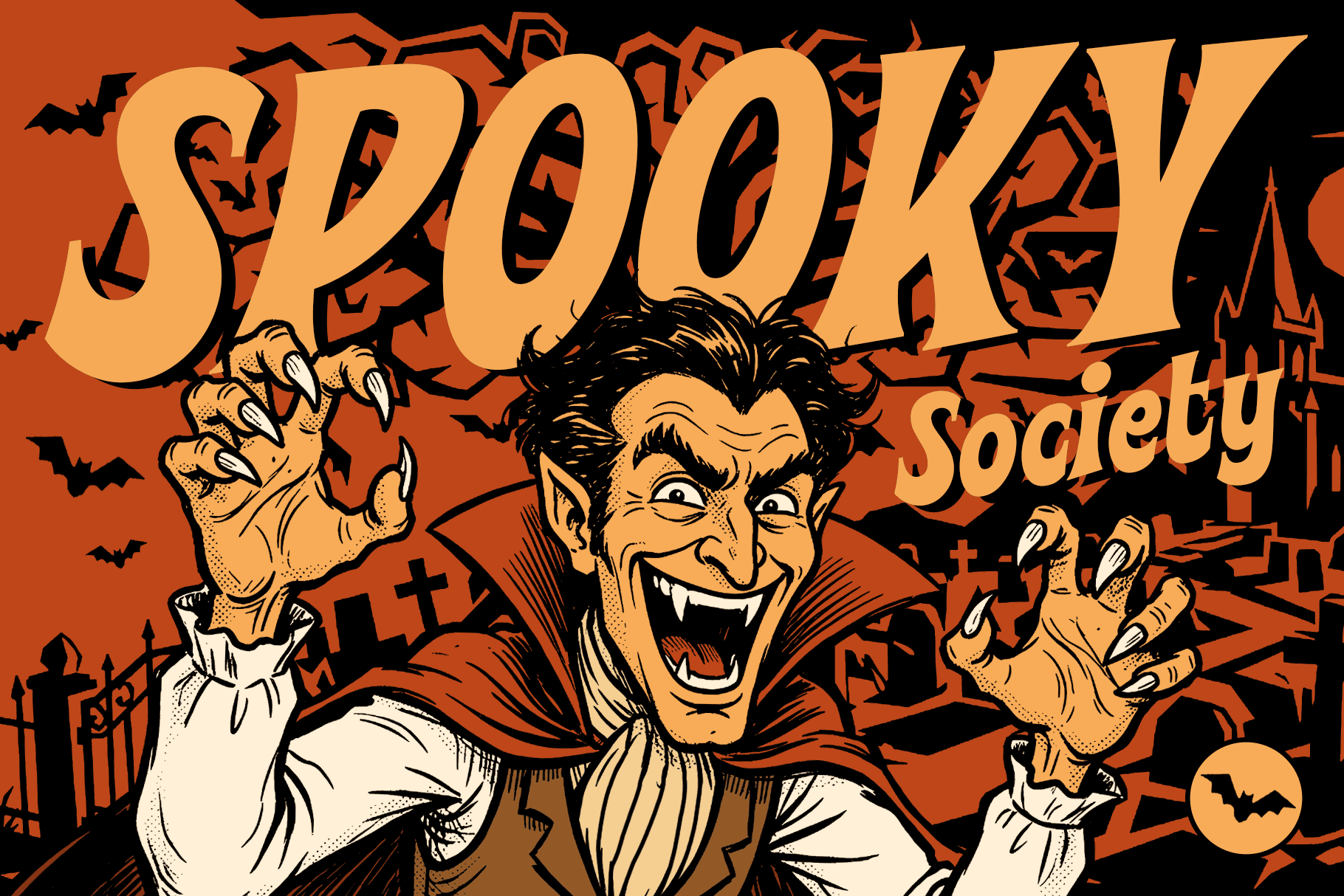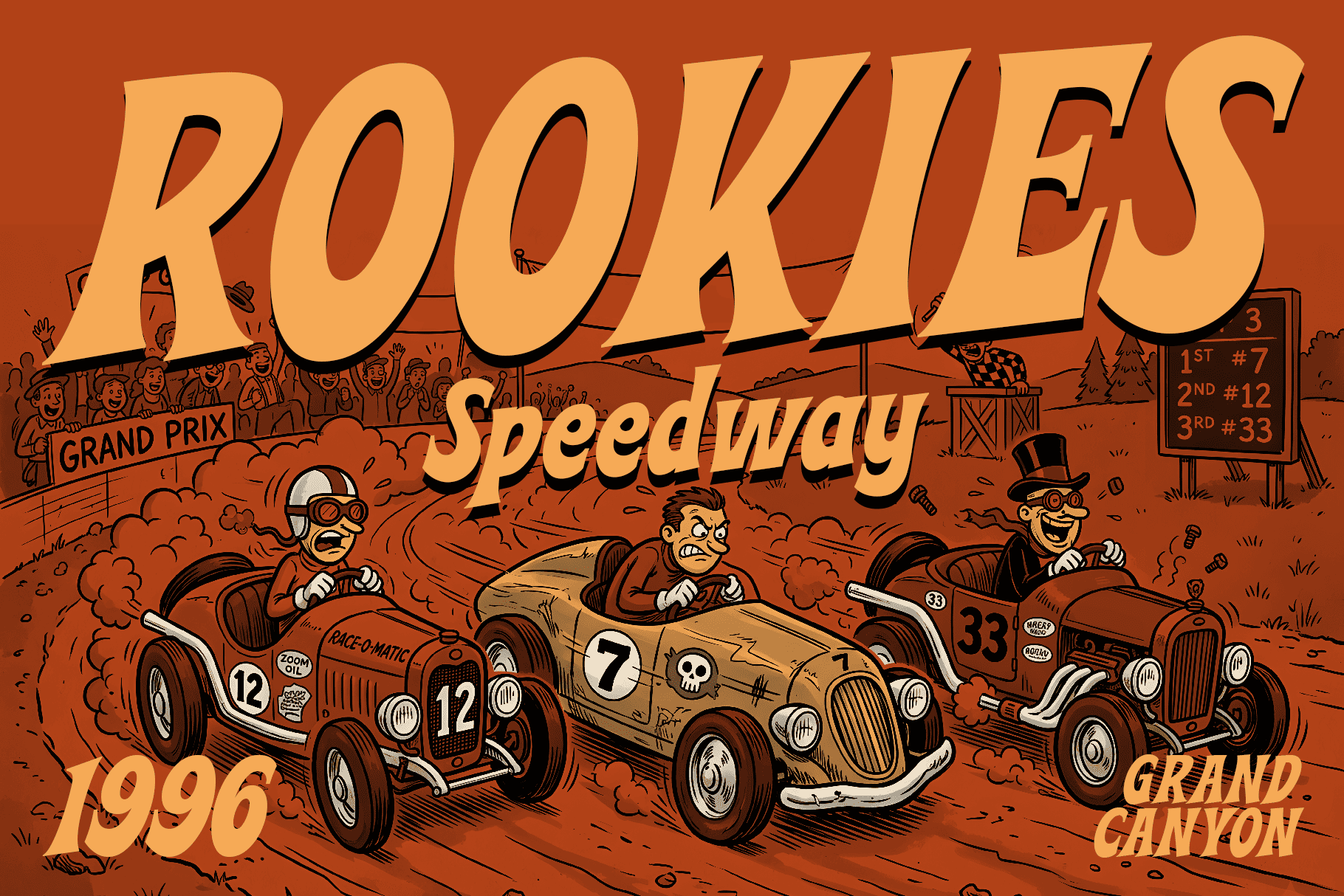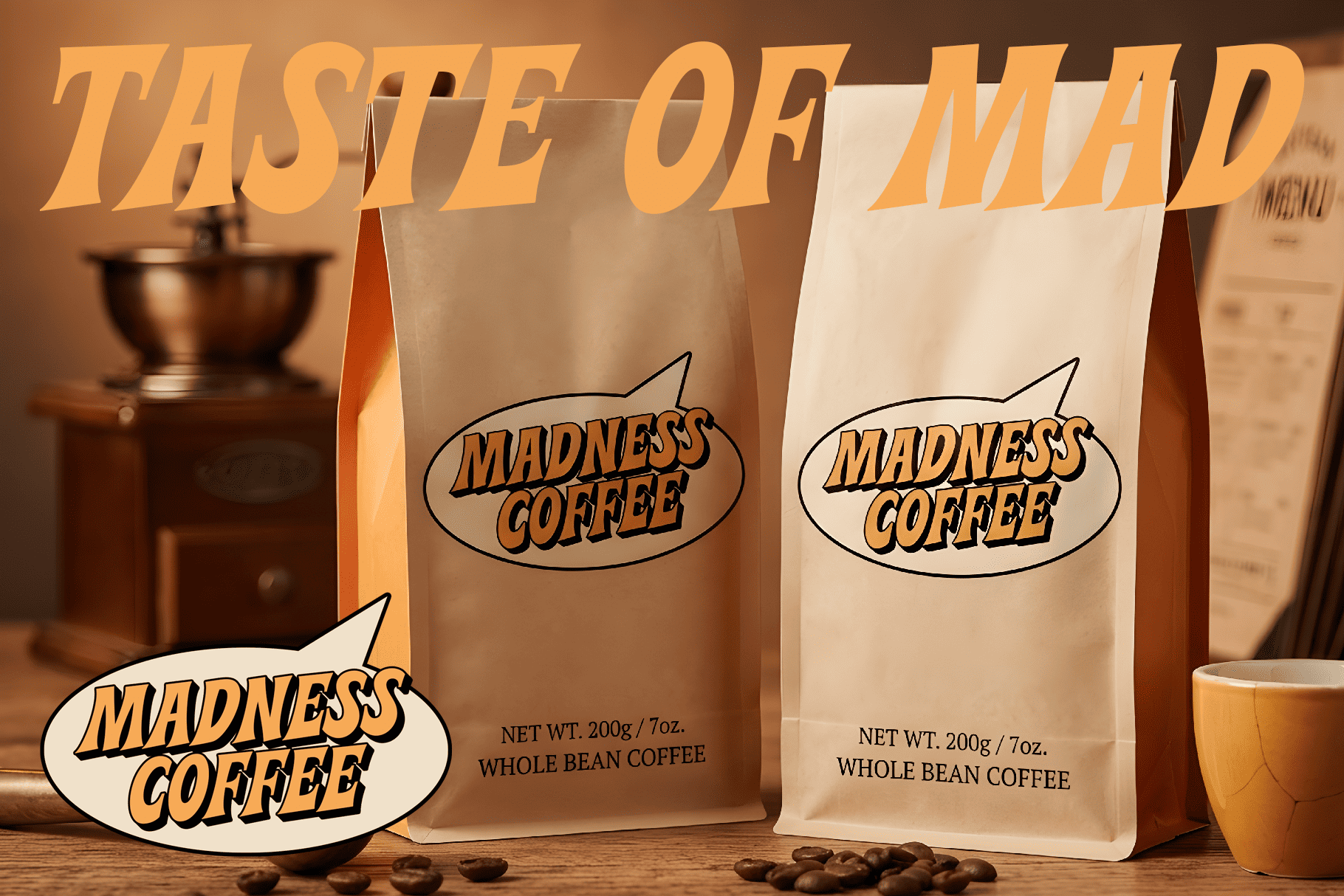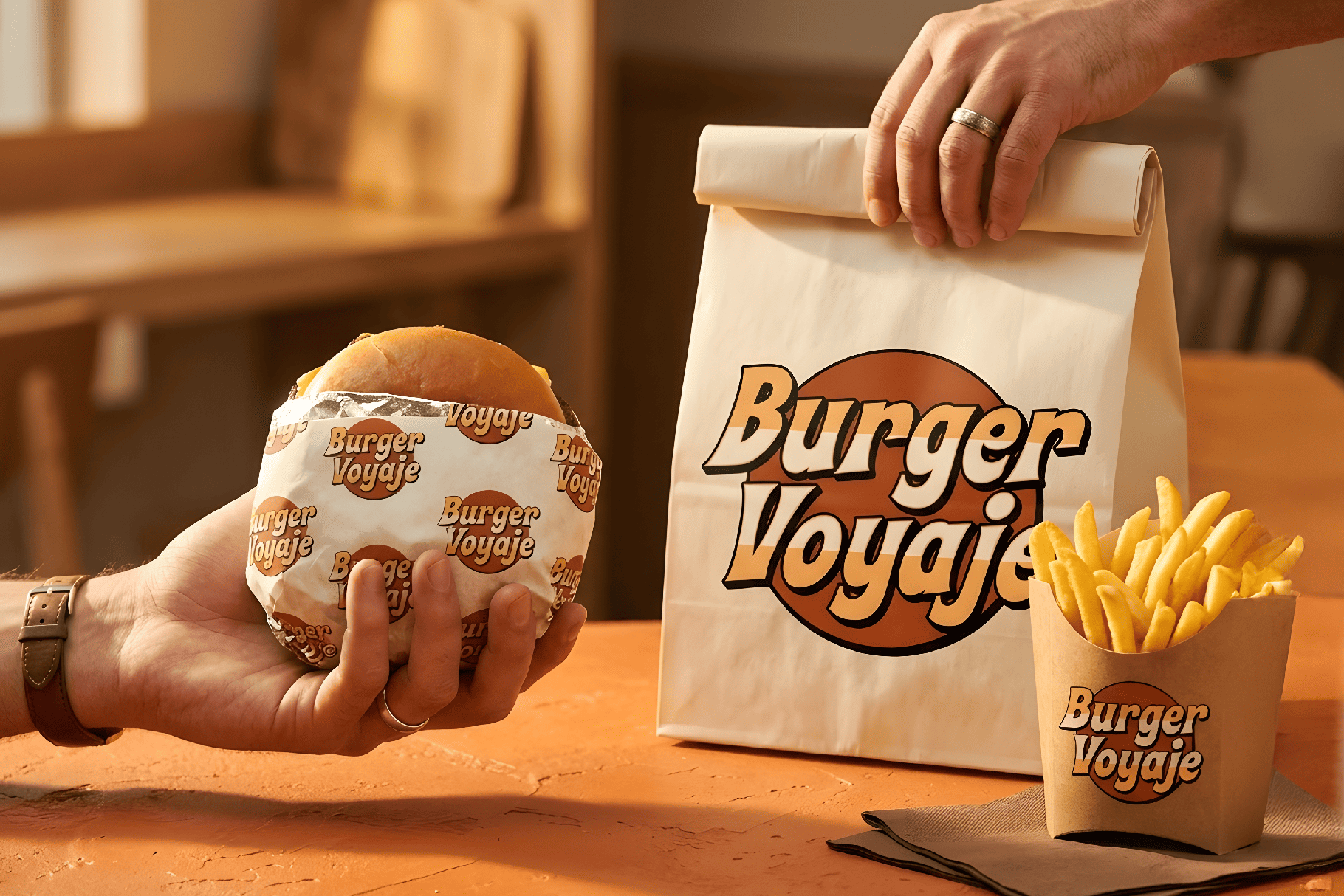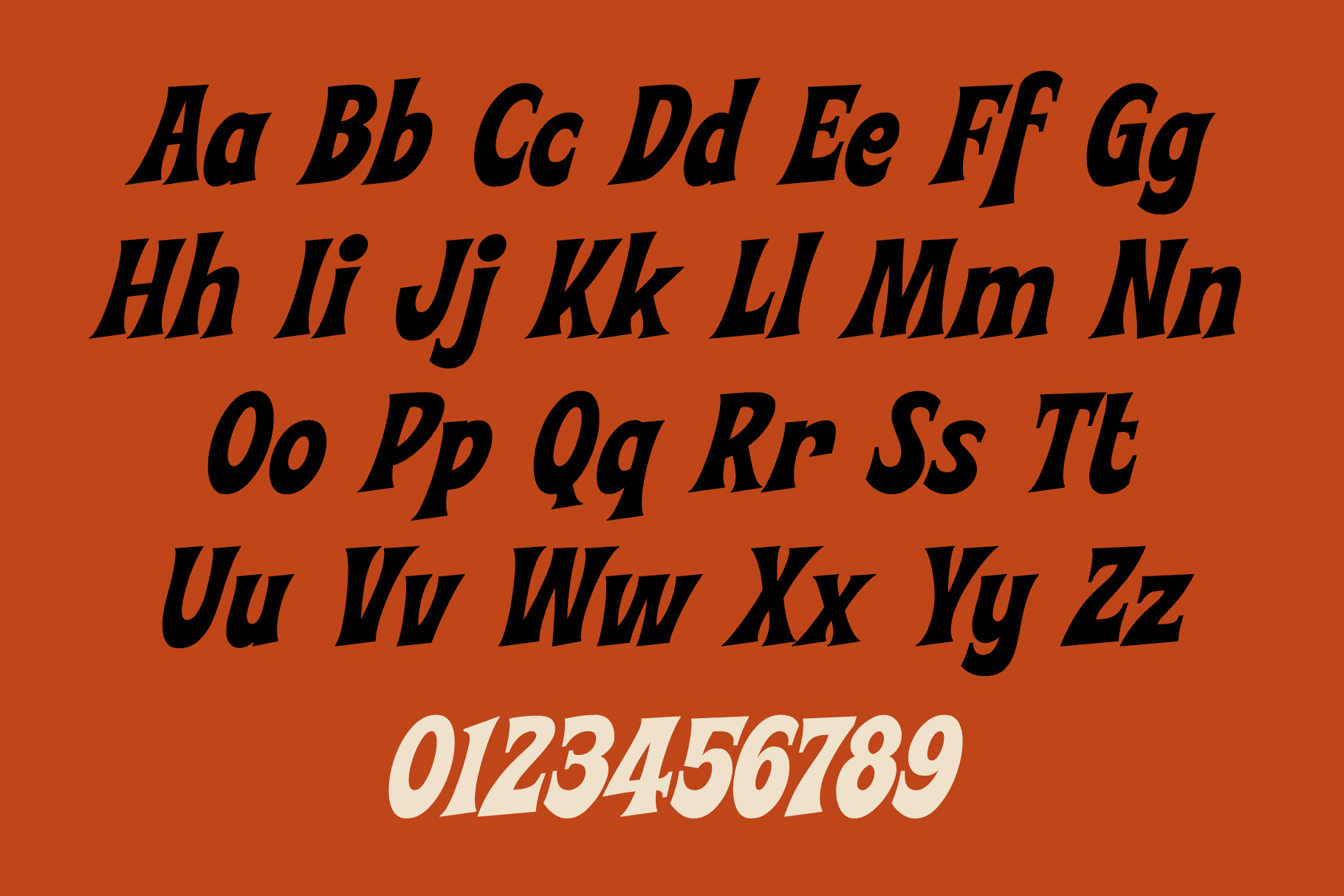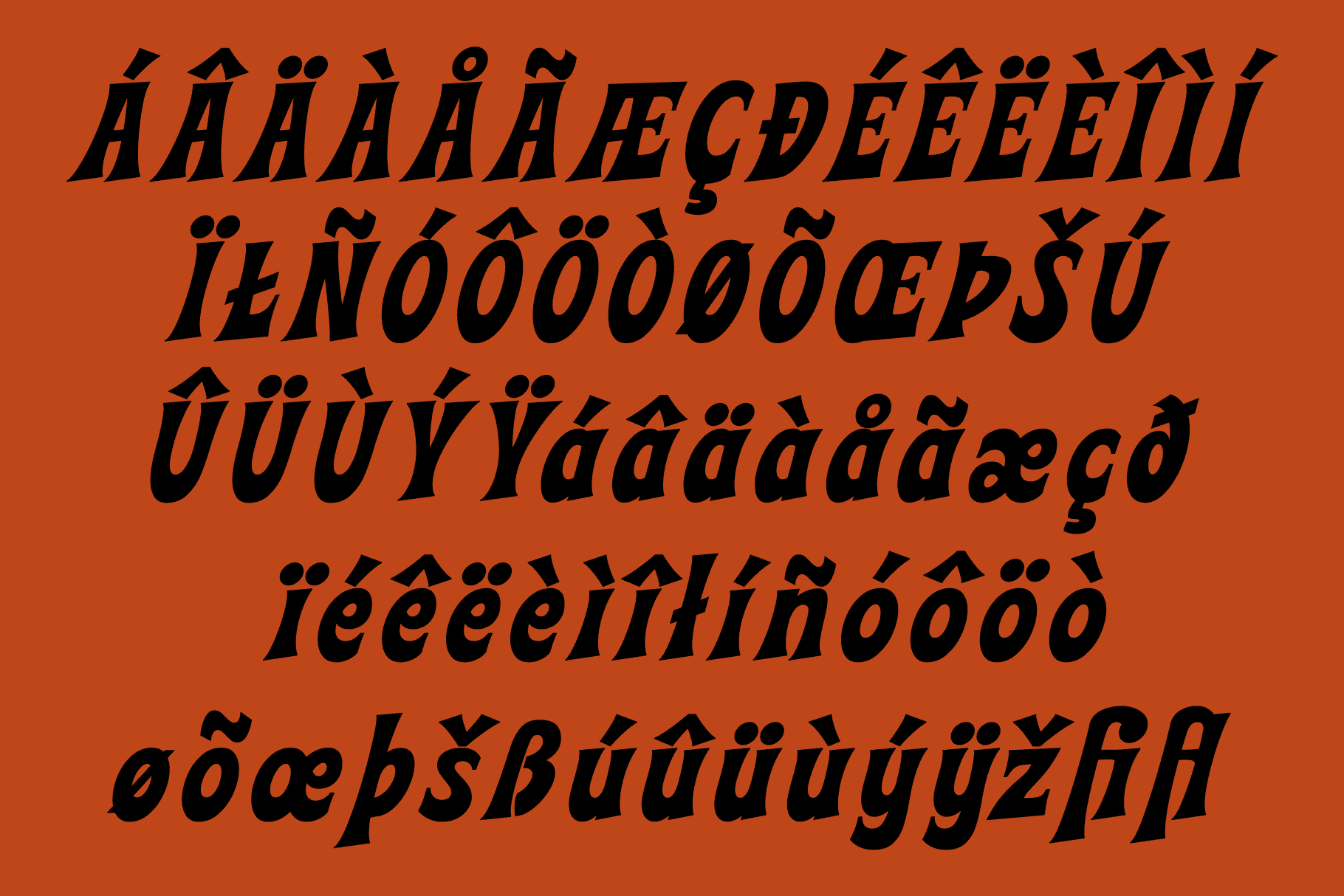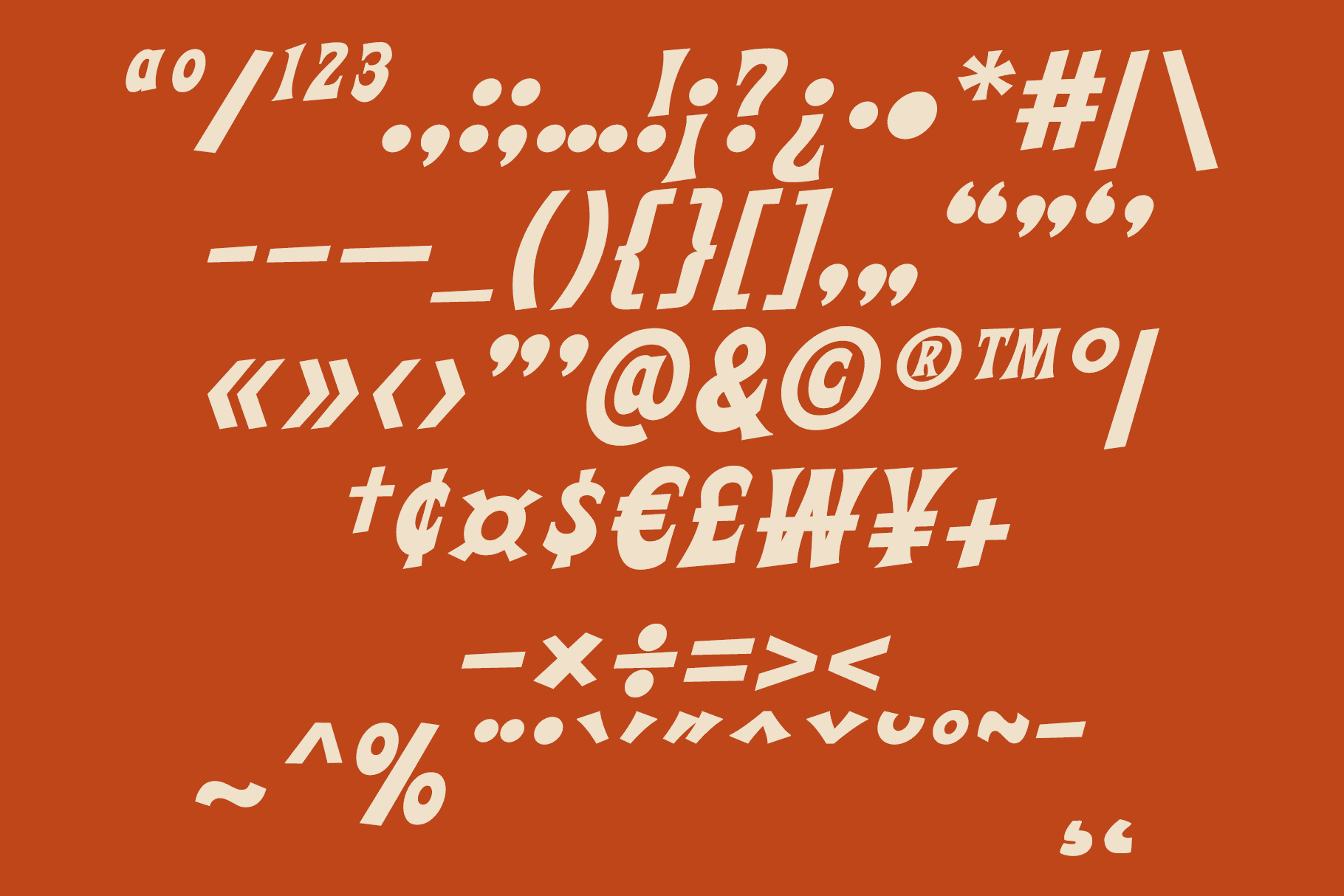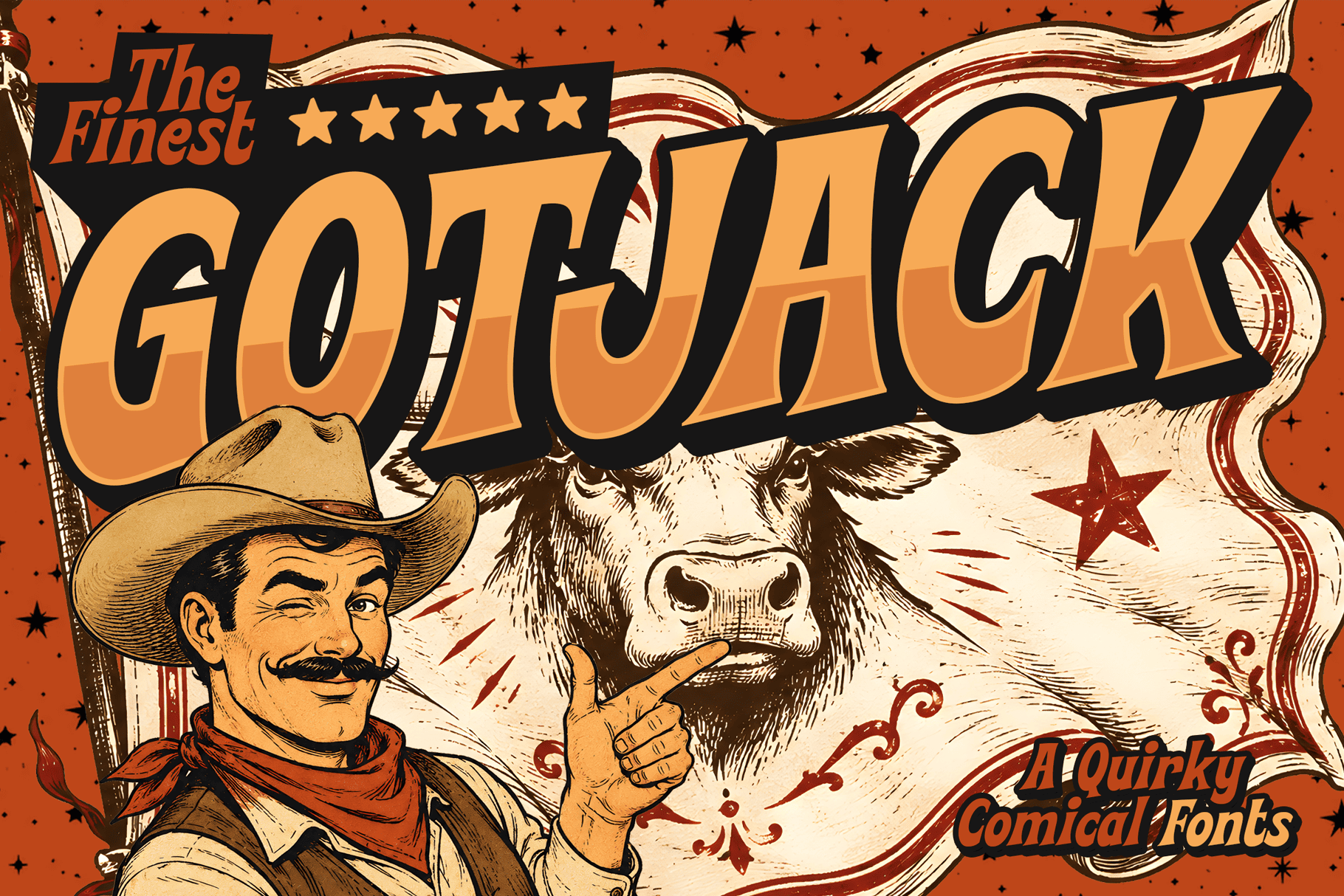
Gotjack – Vintage Comic Fonts
Meet Gotjack: The Ultimate 70s & 80s Vintage Comic Font
Stop traffic, command attention, and inject instant personality into your designs with Gotjack, a premium quirky comical font engineered to stand out. Inspired by the bold, hyper-expressive typography of 1970s and 1980s vintage comics, pop culture, and retro advertisements, Gotjack delivers an authentic blast from the past with modern digital precision.
Gotjack blends a heavy, hand-drawn aesthetic with subtle, intentional serif shapes that give it an unmistakable cowboy-cool, rebellious edge. It is loud, unapologetic, and completely impossible to ignore.
• Unstoppable Visual Impact: Built with ultra-bold weight and dynamic, organic curves, Gotjack guarantees your text will be seen right away.
• Authentic Retro Hand-Drawn Vibes: Captures the nostalgic, hand-inked imperfections of classic comic books, graphic novels, and vintage packaging.
• Subtle Serif Details: Unique, slight serif structures provide excellent baseline stability while keeping the overall look playful, quirky, and full of character.
• Versatile Display Performance: Designed explicitly for high-impact display use, it shines effortlessly across both digital platforms and print media.
Gotjack is the ultimate powerhouse typeface for creators pushing the boundaries of vintage pop branding. It is your go-to solution for:
• Bold Logos & Identity Design that need an immediate, memorable signature.
• Smash-Hit Titles & Movie Headlines that require heavy retro nostalgia.
• Eye-Catching Posters, Merchandise, & Apparel (perfect for t-shirts, stickers, and product labels).
• Social Media Graphics & YouTube Thumbnails that need to stop users from scrolling past.
• Book Covers & Comic Book Lettering looking for that genuine 70s/80s flare.
• Glyphs: Complete uppercase and lowercase character sets, numerals, punctuation, and decorative multi-lingual support.
• Styling Tip: Gotjack pairs beautifully with heavy drop shadows, bold vector outlines, and warm, retro color palettes (like oranges, deep creams, and rich browns) to achieve that ultimate 3D comic book effect.